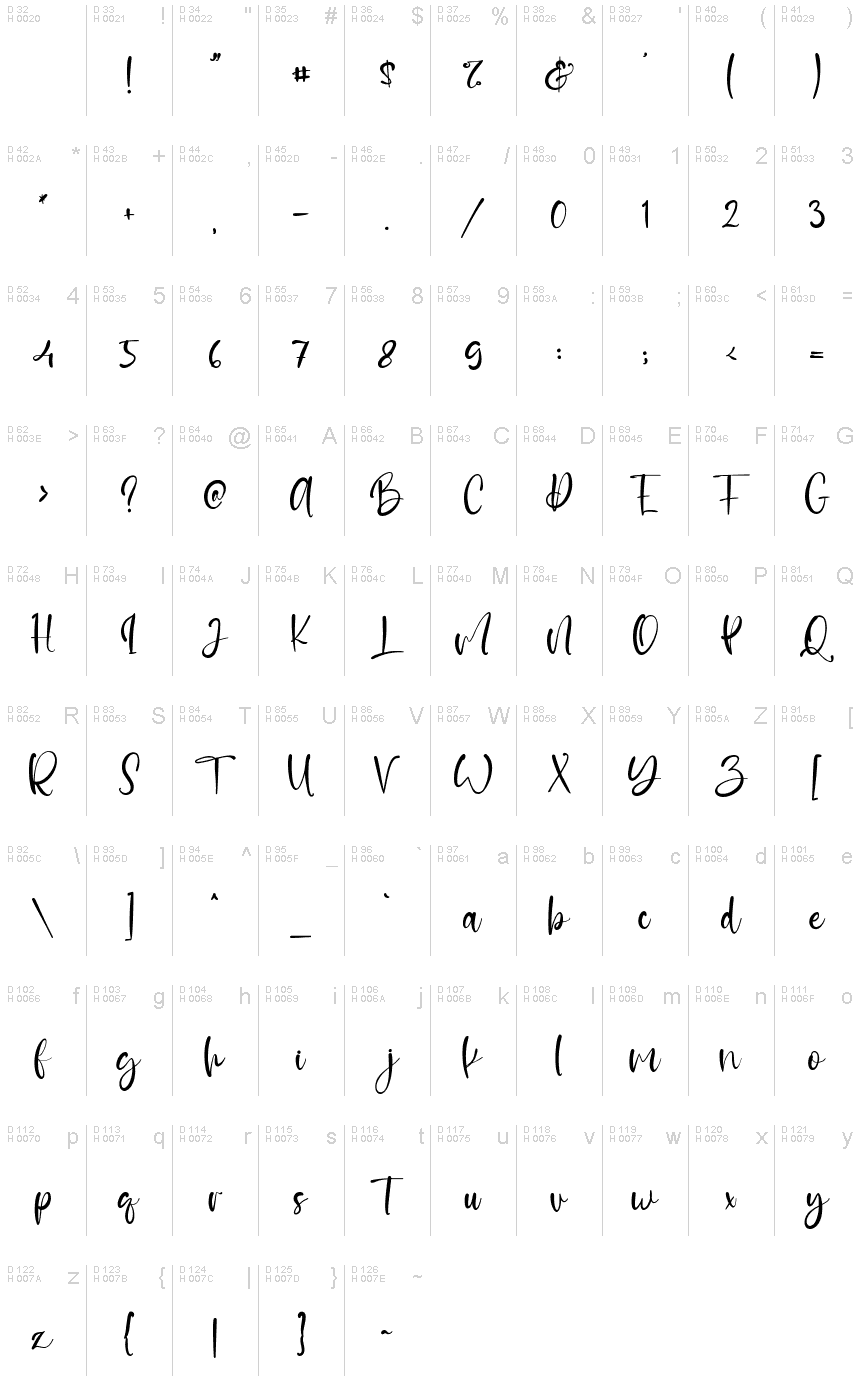
Good Idea
Are you looking for a font that adds a touch of creativity and personality to your projects? Look no further than Good Idea, designed by Kong Font. Its semi-light weight and semi-condensed width make it perfect for a variety of projects, from whimsical wedding invitations to advertising campaigns with a handcrafted feel. Good Idea's handwritten style adds an organic element to your designs, making them stand out from the crowd. Give your next project a unique twist with Good Idea.